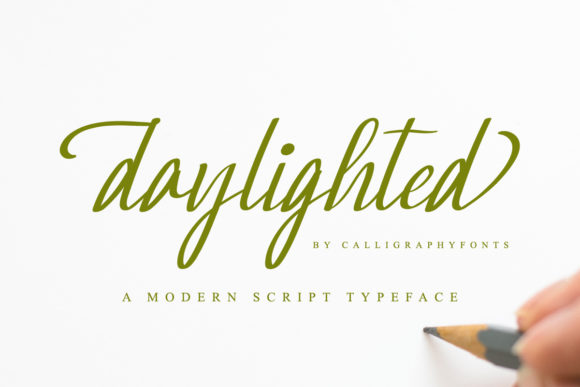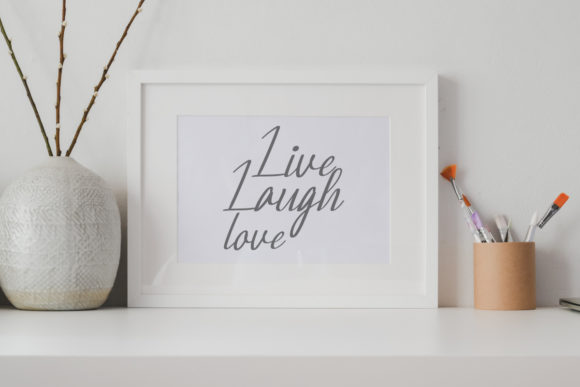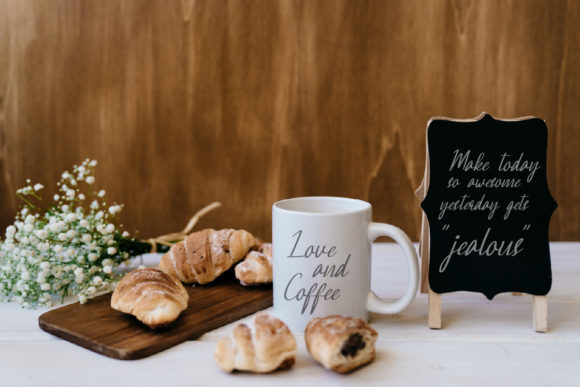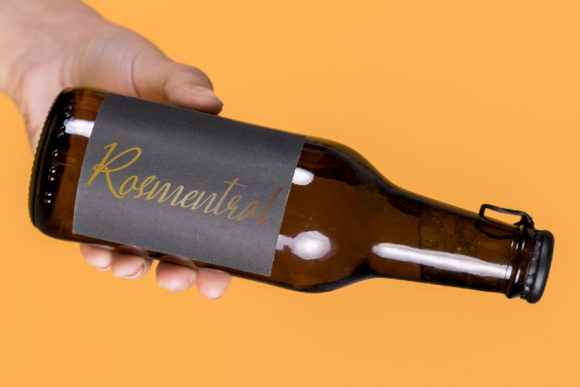
Introduction to Daylighted Font
Have you ever been working on a creative project and suddenly, that one perfect font appears out of nowhere, making all the difference? It’s a moment of pure magic, and for designers, it’s a game-changer. That’s exactly what the Daylighted Font does – it brings your ideas to life with its elegant and flowing handwritten style.
As a valuable design resource, the Daylighted Font is a must-have for any creative project. With its beautiful and well-balanced characters, it’s perfect for adding a touch of sophistication to your designs. And the best part? It’s PUA encoded, making it easy to access all the glyphs and swashes you need. Whether you’re working on a project with a transparent background or a high-quality print piece, the Daylighted Font is sure to impress.
Key Features of Daylighted Font
- Perfect for use in digital designs, such as web graphics, mobile apps, and video editing software.
- Unique, modern design that is easy to read and customize with various font sizes and styles.
- High-resolution design, suitable for printing and display on high-resolution screens.
Honest Review: Daylighted Font
I recently had the chance to try out the Daylighted Font, and I must say it’s been a game-changer for my creative projects. ✨ This high-quality font is perfect for any design resource that requires a clean and modern look.
- Easy to read, even on small screens
- Works well in a variety of contexts, from headings to body text
- Comes with a transparent background, making it easy to use with images or backgrounds
⚠️ One of the limitations of the Daylighted Font is that it may not be the best choice for projects that require a lot of bold or dramatic typography. The font is clean and elegant, but it may not have the same impact as a more dramatic font.
Overall Impression:
Overall, I’m really impressed with the Daylighted Font. It’s a high-quality design resource that’s perfect for any creative project that requires a clean and modern look. I highly recommend it to anyone looking for a great free font download.
Tips for Getting the Most Out of Daylighted Font
Use the Daylighted Font with a transparent background to create a high-quality design. Experiment with different font sizes and styles to add visual interest to your project.
Daylighted Font is ideal for:
- Infographics and data visualization
Yes, the Daylighted Font features a transparent background, making it ideal for creative projects that require a high-quality, design-focused look. This allows you to easily layer the font over images or other design elements without any unwanted background distractions.